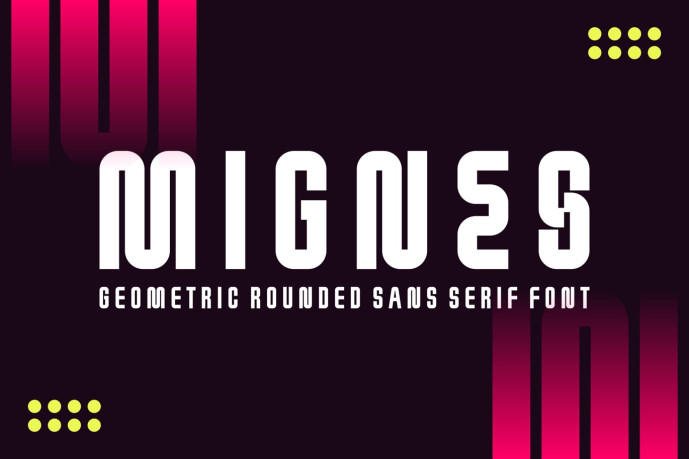
Mignes – Geometric Rounded Sans Serif Font
Mignes – Geometric Rounded Sans Serif Font is a bold and authentic display font. The font is suitable for any branding project like logo, esport, and many more. outstanding in a wide range of contexts.